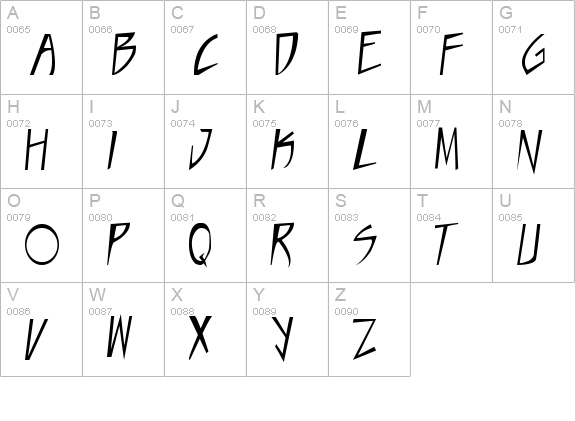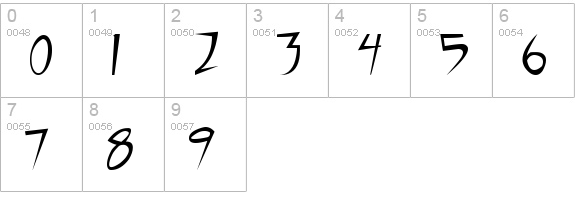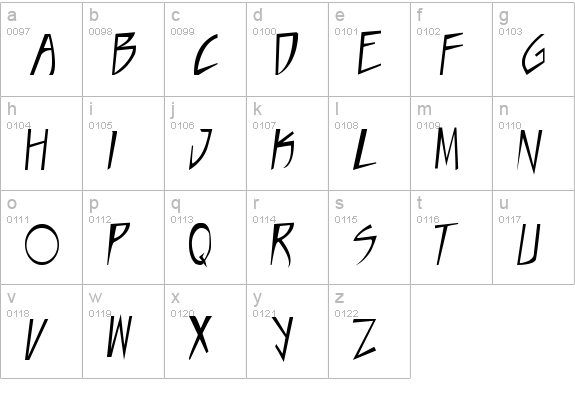
Taste of steel Font Details
The Taste of Steel font is a bold and striking typeface that exudes strength and power. Its sharp edges and industrial-inspired design make it perfect for projects that require a tough and edgy aesthetic. Whether you're working on a logo, poster, or website, Taste of Steel will make a bold statement and leave a lasting impression. What makes Taste of Steel even more appealing is that it is completely free to download at FontsMarket.com. This means you can easily add this unique font to your collection without any cost. Don't miss out on the opportunity to enhance your designs with the impactful style of Taste of Steel font – download it today and start creating visually stunning projects that stand out from the rest.